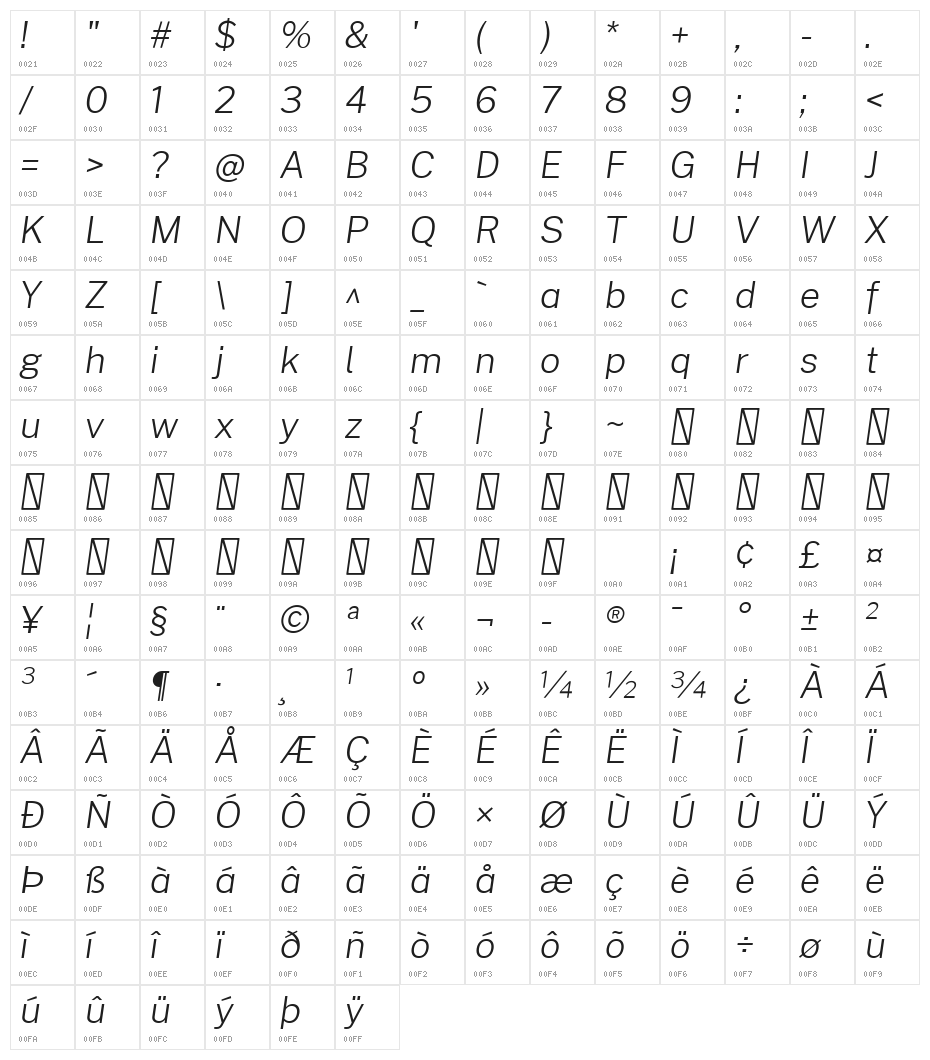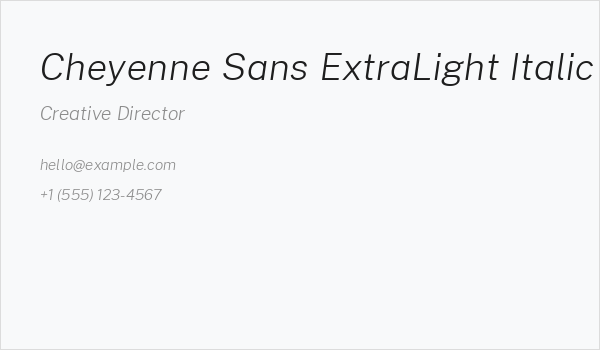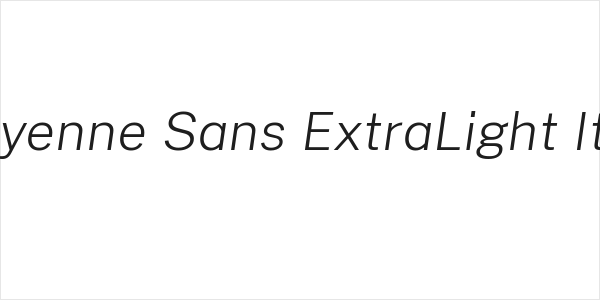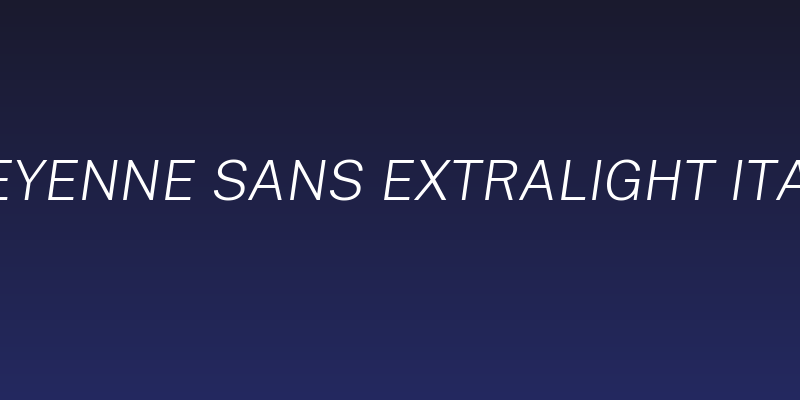
Cheyenne Sans ExtraLight Italic Font
Cheyenne Sans ExtraLight Italic Description
This font features a sleek and modern sans-serif design with an extra light weight, giving it an airy and elegant appearance. The italic style adds a subtle slant to the characters, enhancing its dynamic and fluid look. The characters are well-proportioned with a consistent stroke width, contributing to its clean and minimalist aesthetic. The font maintains a uniform baseline with smooth curves and sharp edges, making it versatile for various design applications. Its readability is enhanced by the generous spacing between letters, ensuring clarity even at smaller sizes.
| Proposed Projects | Ideal for modern branding, editorial design, websites, and minimalist posters. |